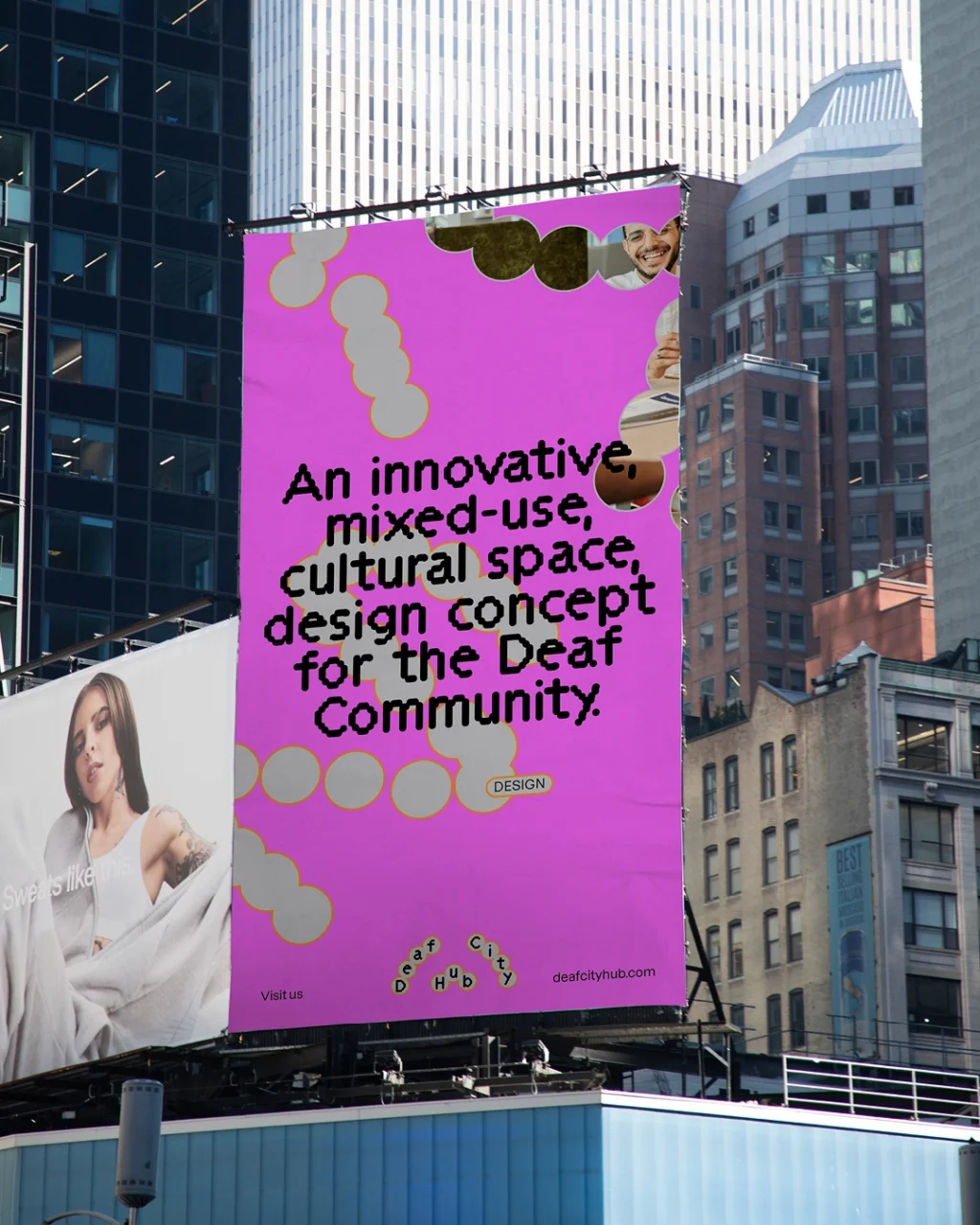
Templo took a highly original approach to branding a new cultural space for the deaf community, taking inspiration from the community itself.
Glance at a typical logo and one question typically comes to a designer’s mind: “What font are they using?” Then maybe a supplementary question: “Is it a font I know, or a custom typeface?” Yet when it comes to the visual identity crafted by Templo for DeafCity Hub, things work very differently.
Here, the letters sit inside a chain of wobbly, bead-like circles. And they’re actually based on the shapes and gestures made by hands when communicating in British Sign Language. In other words, the shape wasn’t simply drawn or designed on a screen. It was captured from real hand movements.
Authentic from the ground up
Templo, which describes itself as a cause-led branding and communications agency, used motion-tracking technology to capture hand movements inspired by British Sign Language. They then used those movements to create the visual language of the new identity.
The instinct then might have been to smooth out said shapes and to streamline the design into something that looked slick and professional. But Templo’s designers knew better than that. They knew that slightly off-key wonkiness was key to creating something that felt real and authentic.
In a way, their approach was similar to a typical logo design process, just in reverse. Usually, designers create something on screen, from pixels, that looks slick and geometrically precise, but maybe lacks soul. And so it’s tweaked, and tweaked some more, until it feels a little more grounded and expressive.
In this case, though, Templo started with something that was literally expressive–human hands signing a phrase—and built the lettering for the logo, along with other elements of the visual identity, from that. And really, how much more authentic can you get?
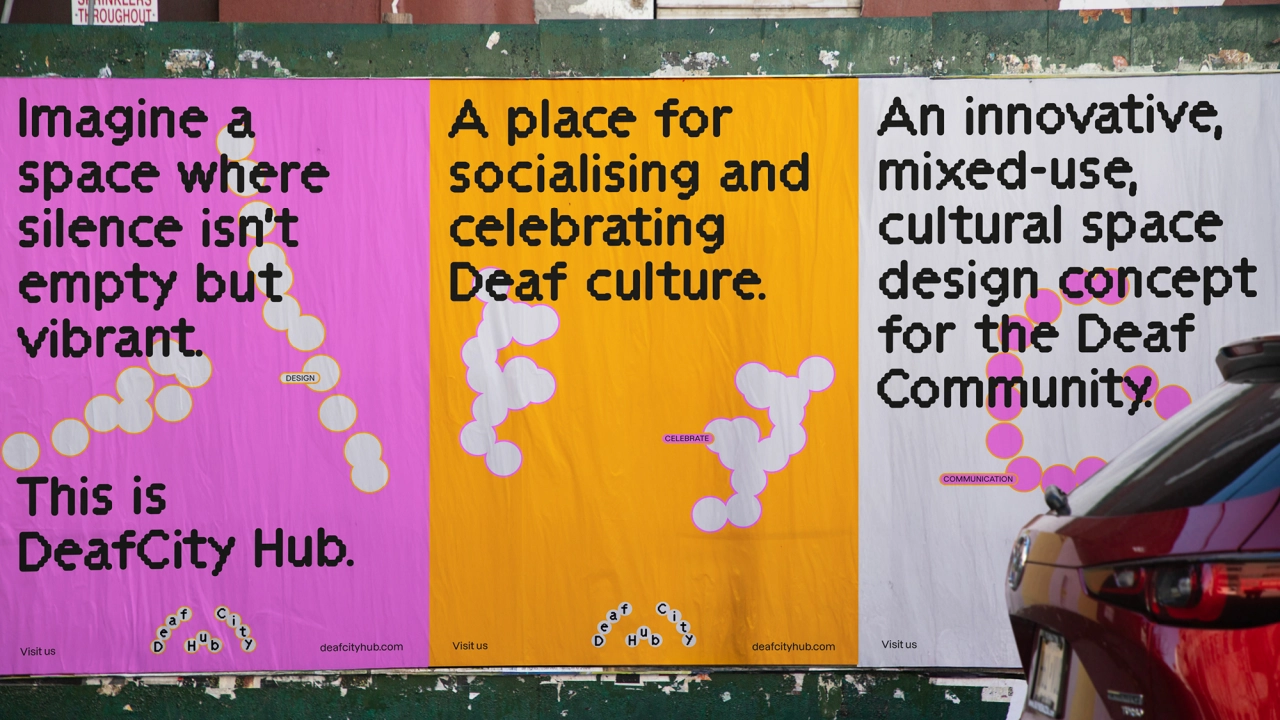
As Amanprit Arnold, founder of DeafCity Hub & Disability Urbanism, puts it: “Movement, 3D spatial language, and visual rhythm are at the heart
of deaf culture and communication. This bright, joyful motion identity […] brings our authentically co-designed co- working and cultural space to life across every touchpoint.”
Another thing that jumps out is the colour. DeafCity Hub brings together a hot pink and a bright orange. Chosen specifically to stand out against other deaf-led brands, it’s a noisy, slightly crass combination you don’t often see in identities for charitable organisations.
And that, to me, is why it works so well. I didn’t realise how used I’d become to worthy causes using soft, muted colours. But seeing the opposite—a vibrant palette that would feel at home on a flyer for a nightclub—I think maybe others should take a leaf out of this book.
Key takeaway
The takeaway here isn’t to go buy motion-capture software and copy what Templo have done for DeafCity Hub. Instead, we can all be inspired by what they’ve done more broadly: to approach something as standard as logo design and reinvent it on the fly. And in the process, to craft something for the client that stands out, in all the right ways.
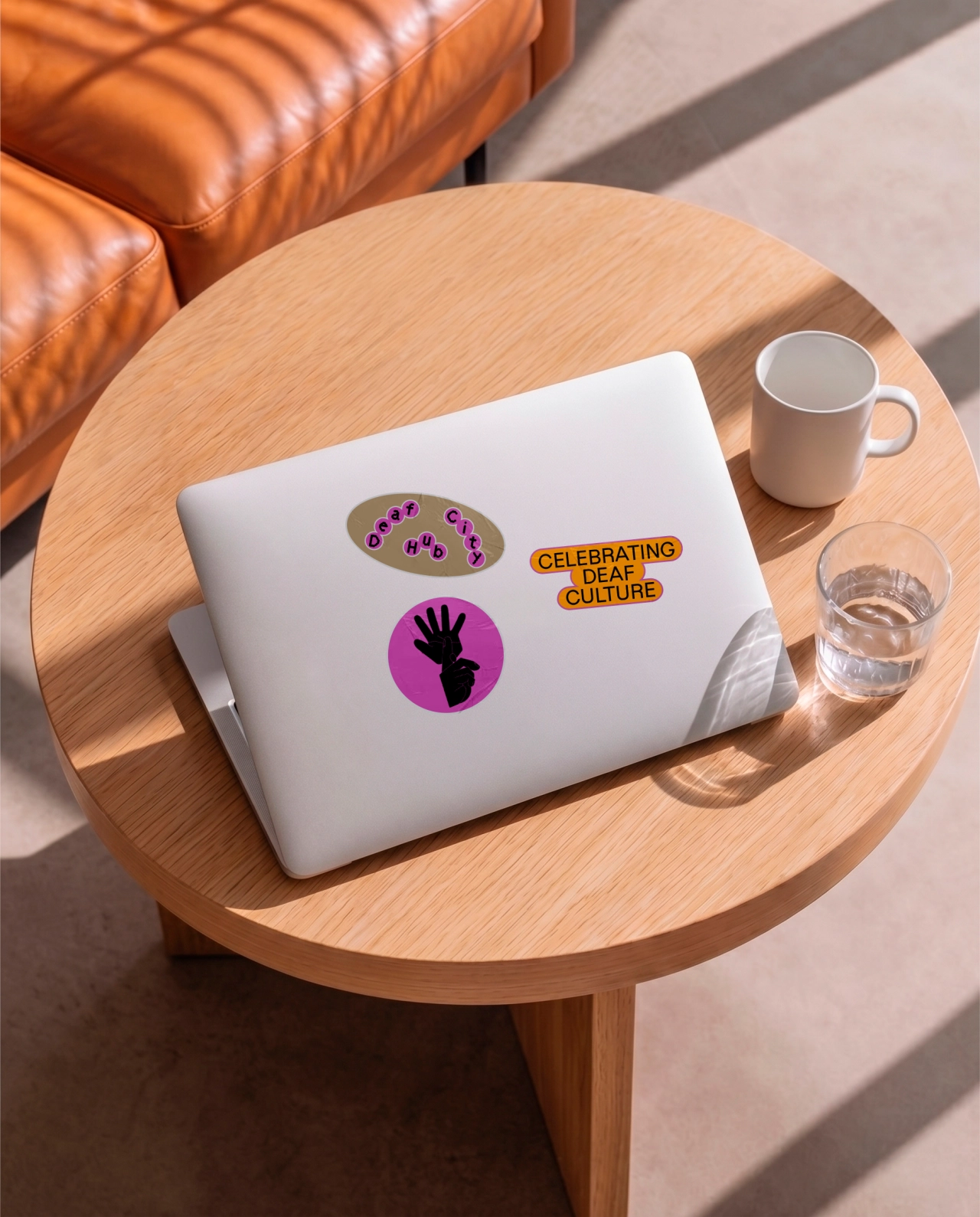
That might, admittedly, cause a few production headaches along the way. After all, while many logos can just be typed, this identity is built around captured hand movements rather than a conventional typeface. So how does that work in practice, when the brand needs to appear on everything from a billboard to a sticker or social post?
Even this potential niggle, though, means the brand is making a statement. Basing the logo on signed communication rather than conventional typography puts the deaf community’s own way of communicating at the centre of the brand. Because the best answer to “how can we make this feel authentic” is sometimes just to stop designing and start listening.